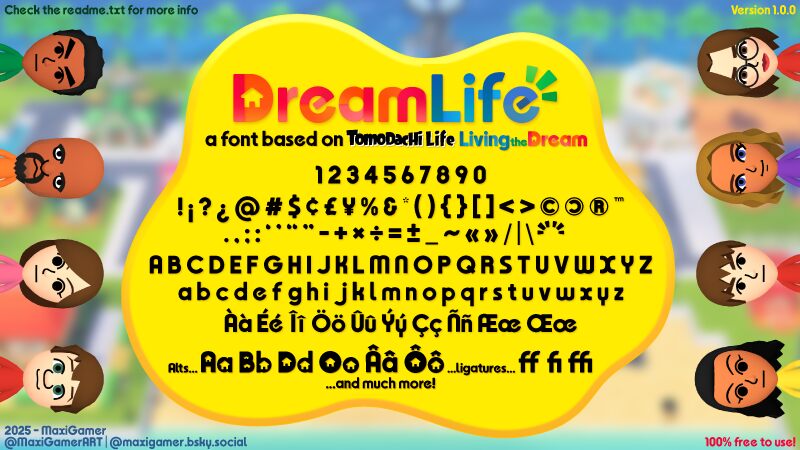
DreamLife
DreamLife font by MaxiGamer features a bold geometric Bauhaus-inspired style with an overall contemporary appearance. Its structure looks assembled, and its lines are rounded entirely from the inside and outside. Letters complement and communicate with each other for an approachable impression which is also supported by the font’s friendly nature.